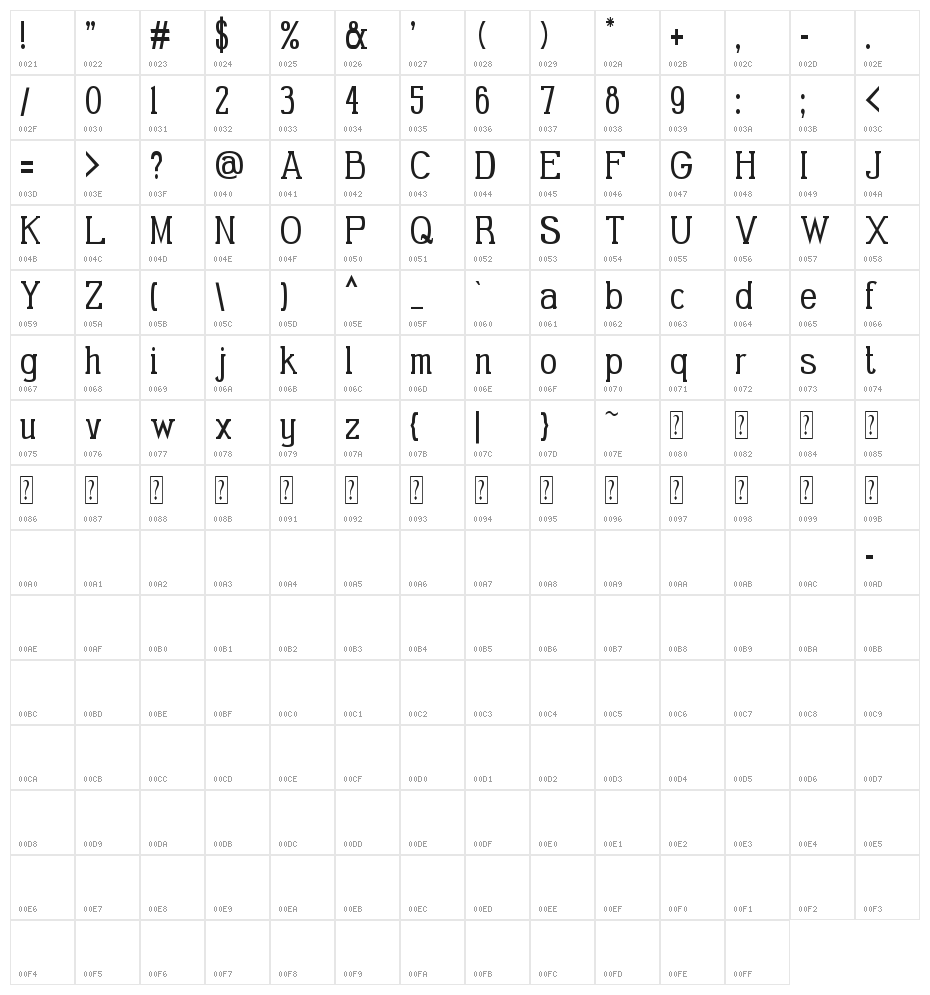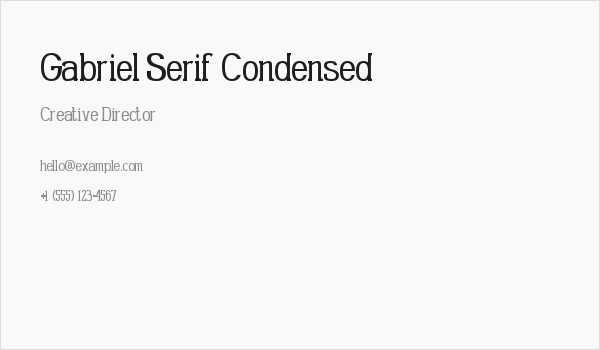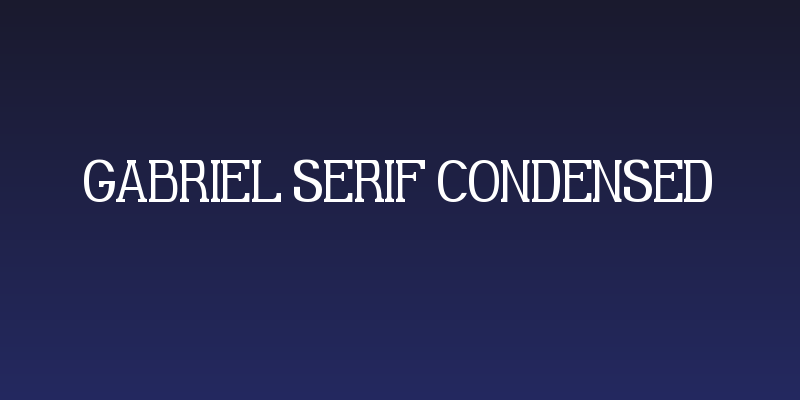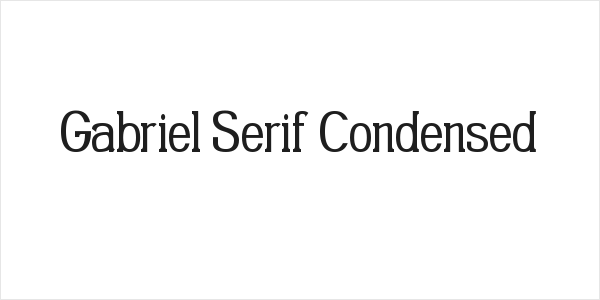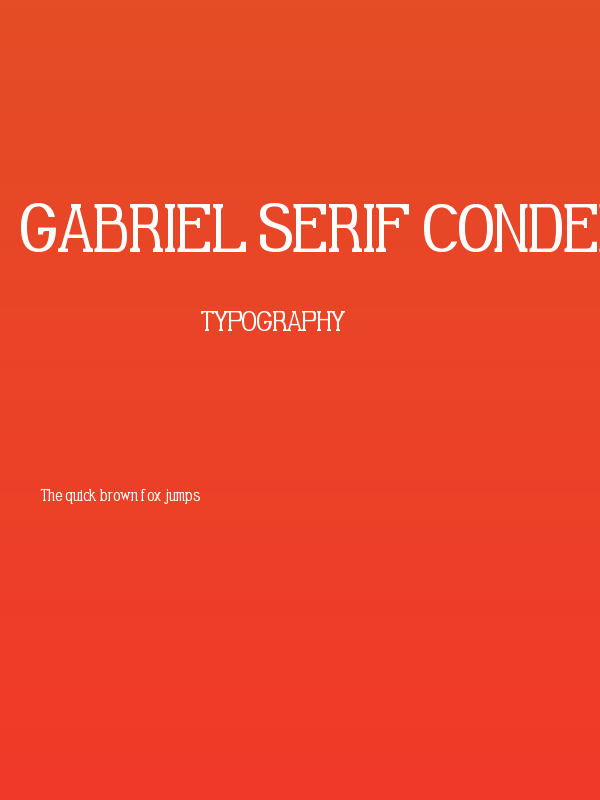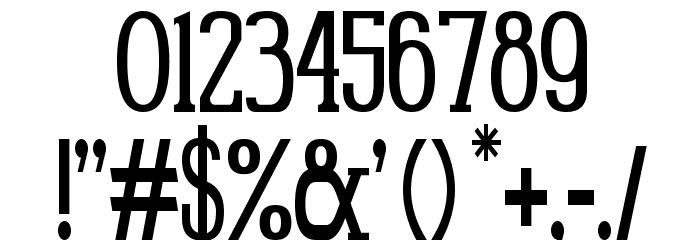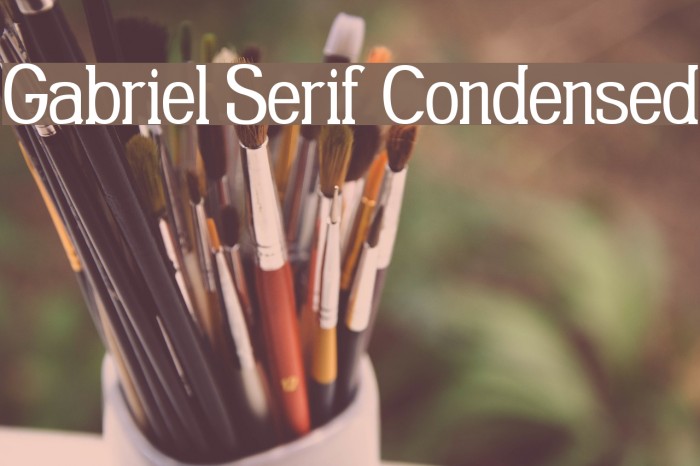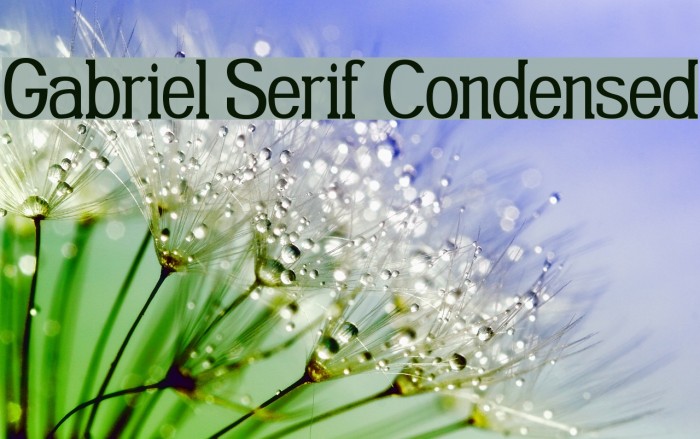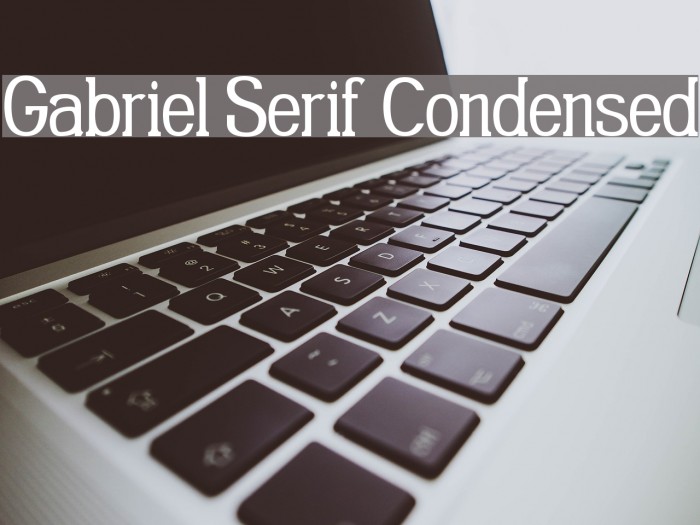
Gabriel Serif Condensed Font
Gabriel Serif Condensed Description
This serif font features a condensed style with elegant and refined letterforms. The characters exhibit a classic serif structure with a modern twist, characterized by clean lines and a balanced proportion. The uppercase letters are bold and commanding, while the lowercase letters maintain a consistent flow, enhancing readability. The numerals are distinct and align well with the overall aesthetic, making them suitable for both formal and contemporary designs. Special characters are thoughtfully designed, ensuring versatility across various applications.
| Use Case | Headlines, Body text, Logos |
| Proposed Projects | Ideal for editorial design, book covers, branding, and sophisticated advertising campaigns. |